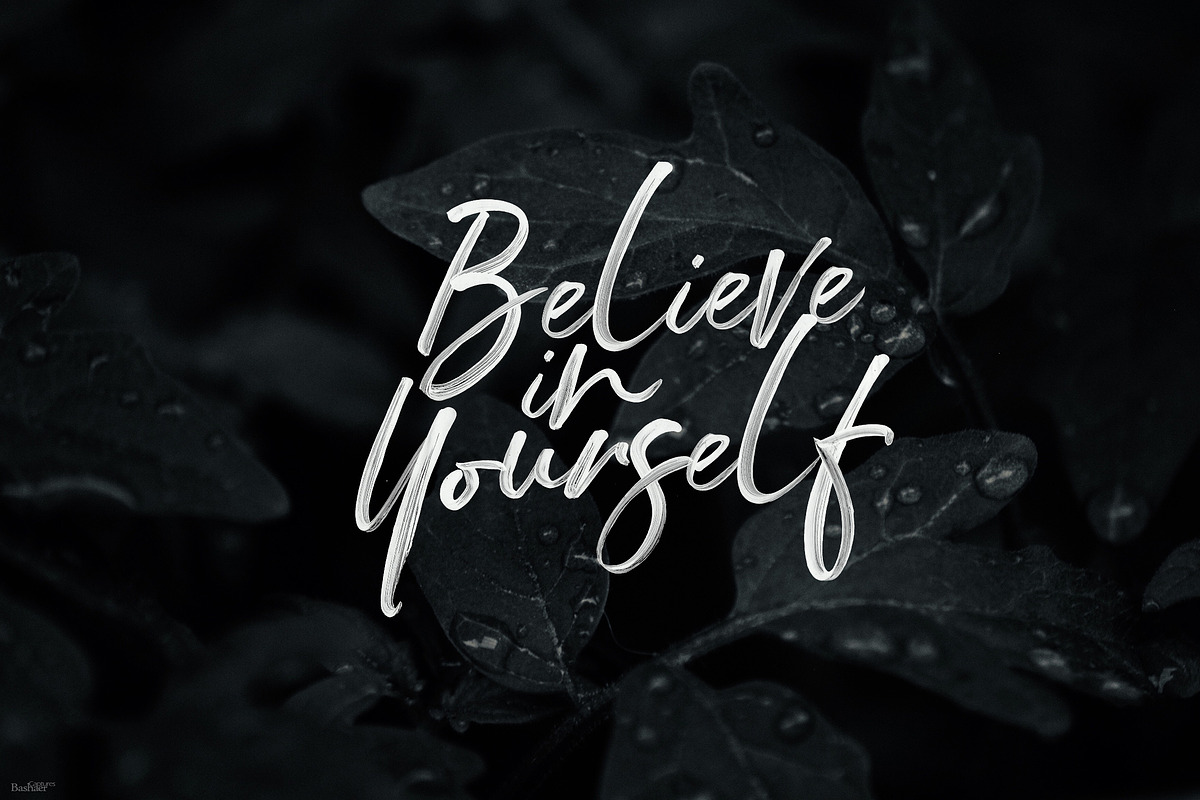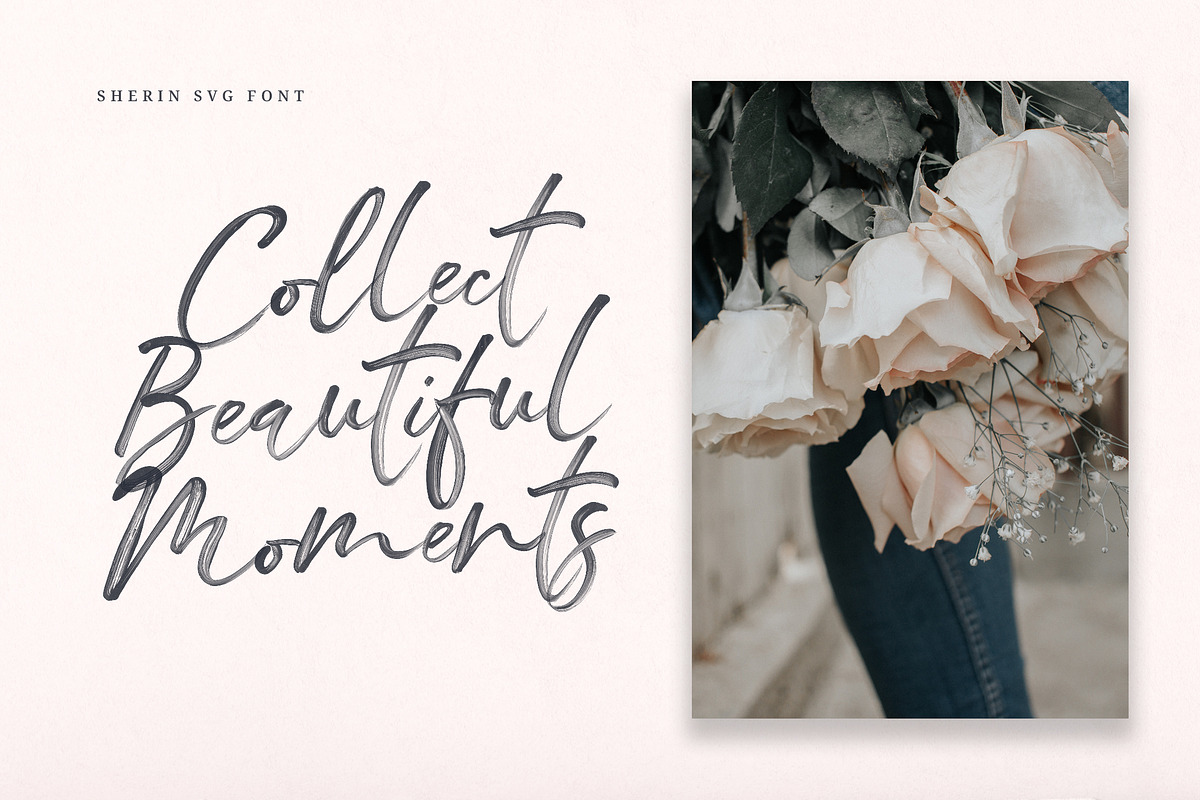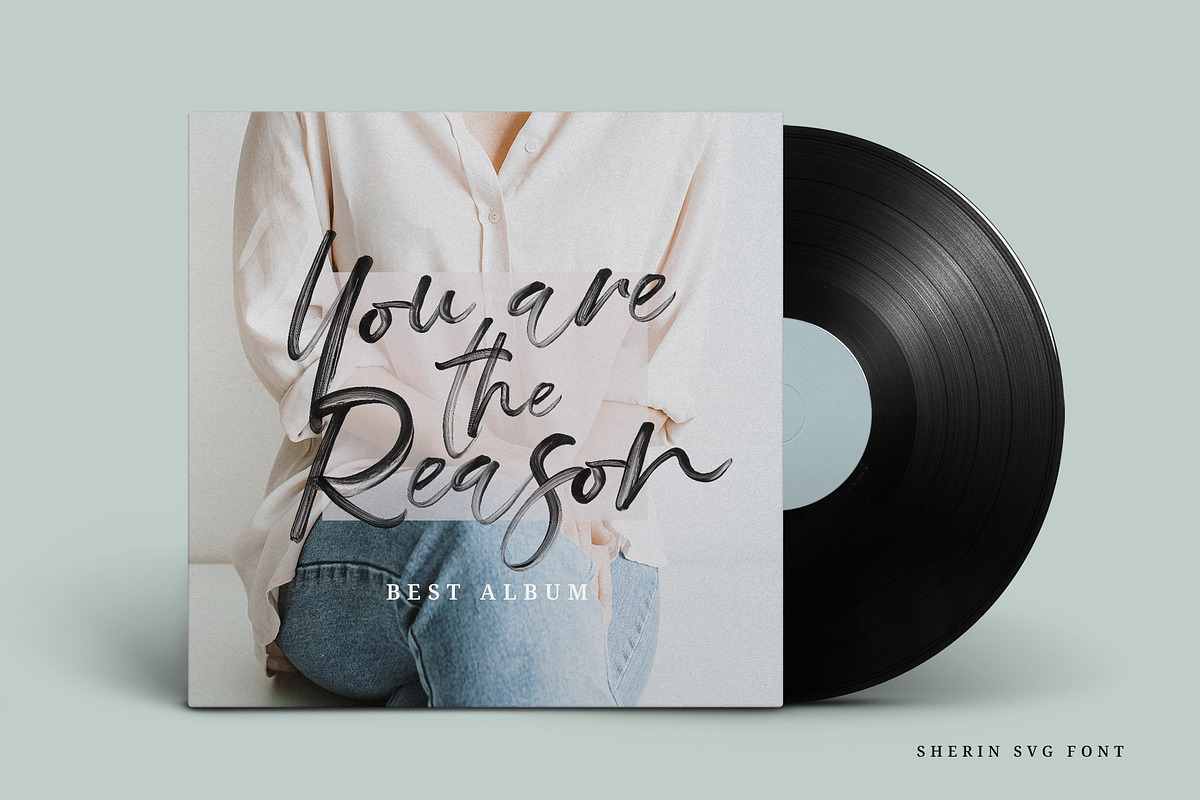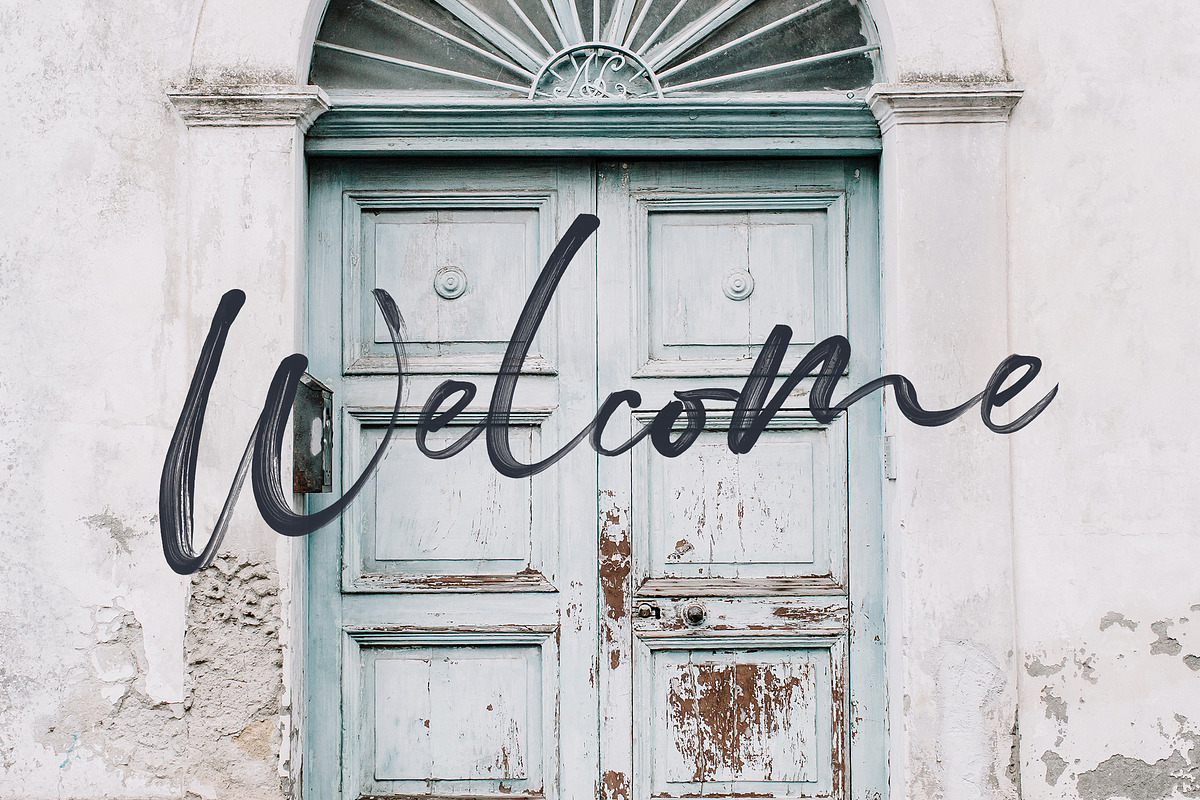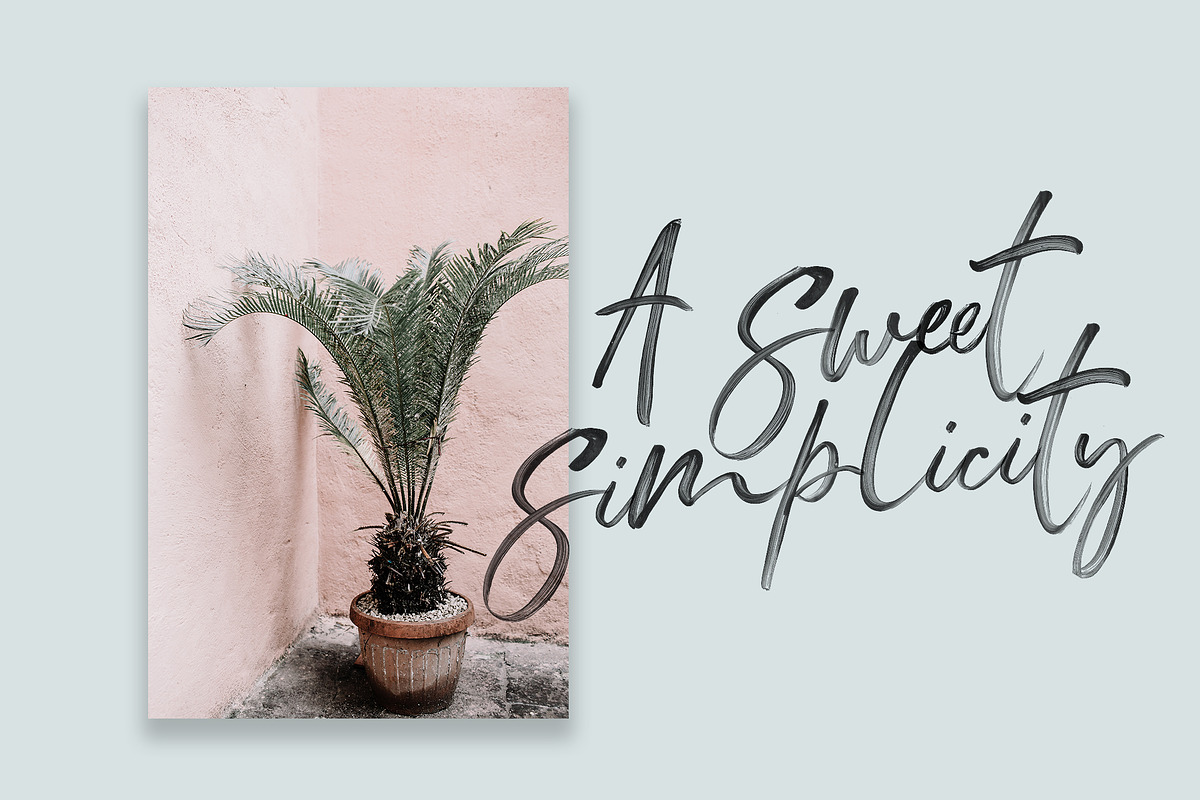
Sherin SVG Font
Introducing the brand new textured SVG Fonts designed with high-definition paint textures. Comes in 2 forms style; SVG and Brush (Solid Version). Perfect for DIY projects, greeting cards, labels, quotes, posters, wall art, branding, packaging, websites, photo & photography overlays, signs, window art, scrapbooking, tags and so much more!